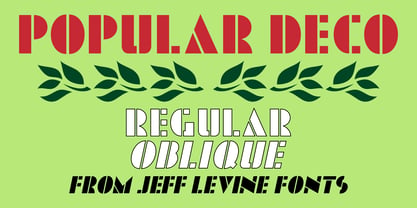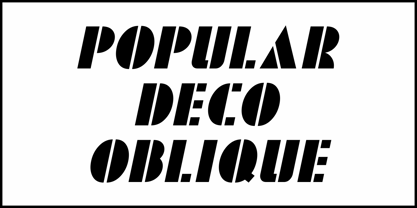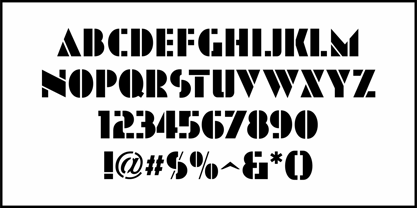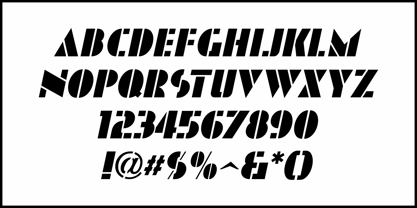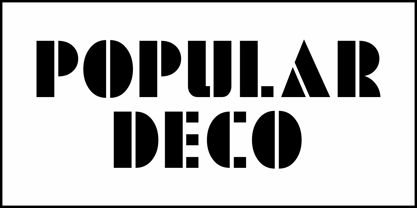
Popular Deco JNL
by Jeff Levine
The Popular Deco JNL Font Family was designed by Jeff Levine and published by Jeff Levine. Popular Deco JNL contains 2 styles and family package options. More about this family
If imitation is the sincerest form of flattery, then Futura Black (with its bold stencil-like design) should be a proud typeface. There are many variations of this stalwart font from the Art Deco era - each with their own distinctive take on this classic.
Some hand lettering found within the April, 1938 issue of Picture Play Magazine for the title of the article "Streamlining the Stars" is one such example.
This is now available digitally as Popular Deco JNL in both regular and oblique versions.